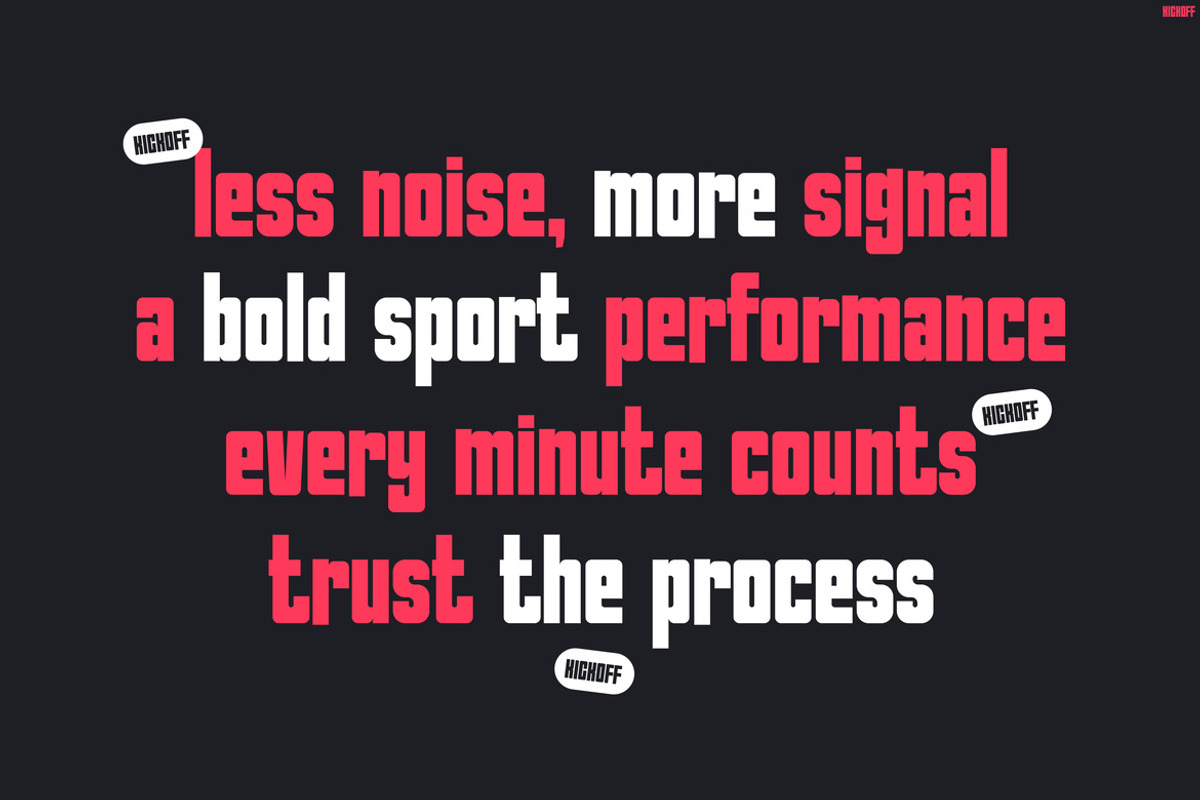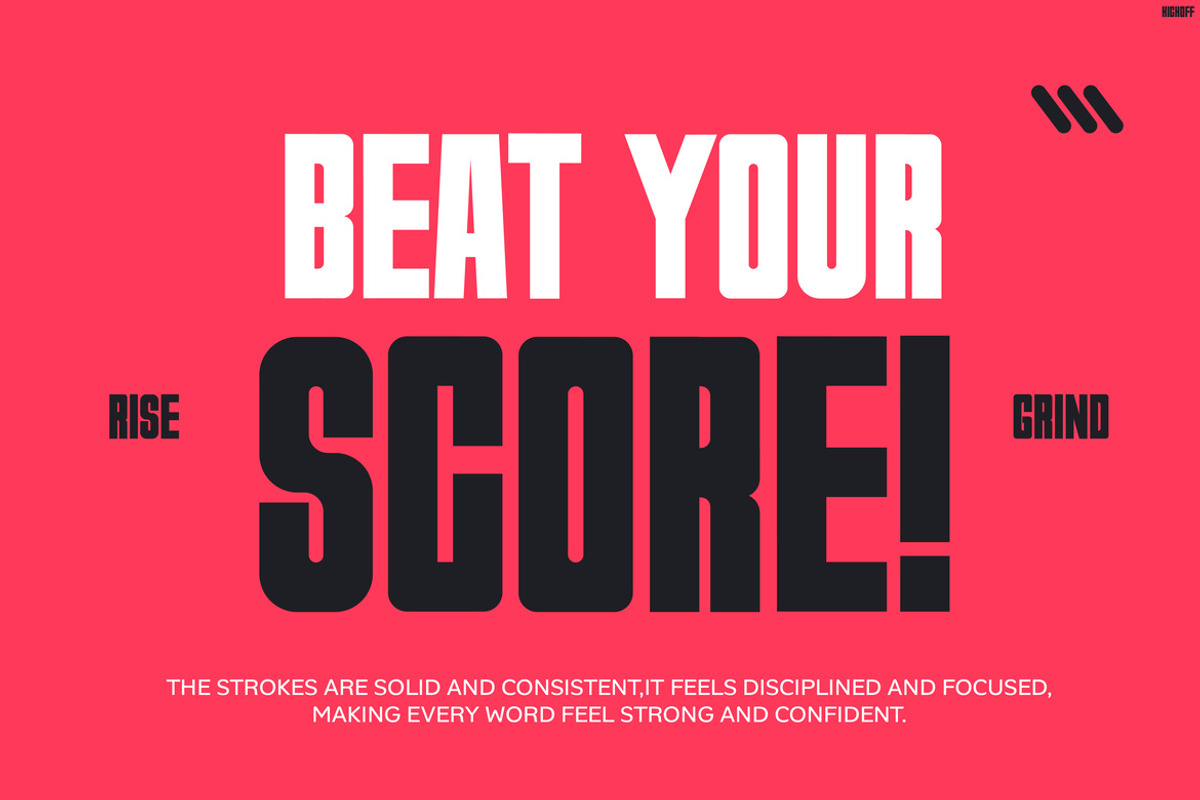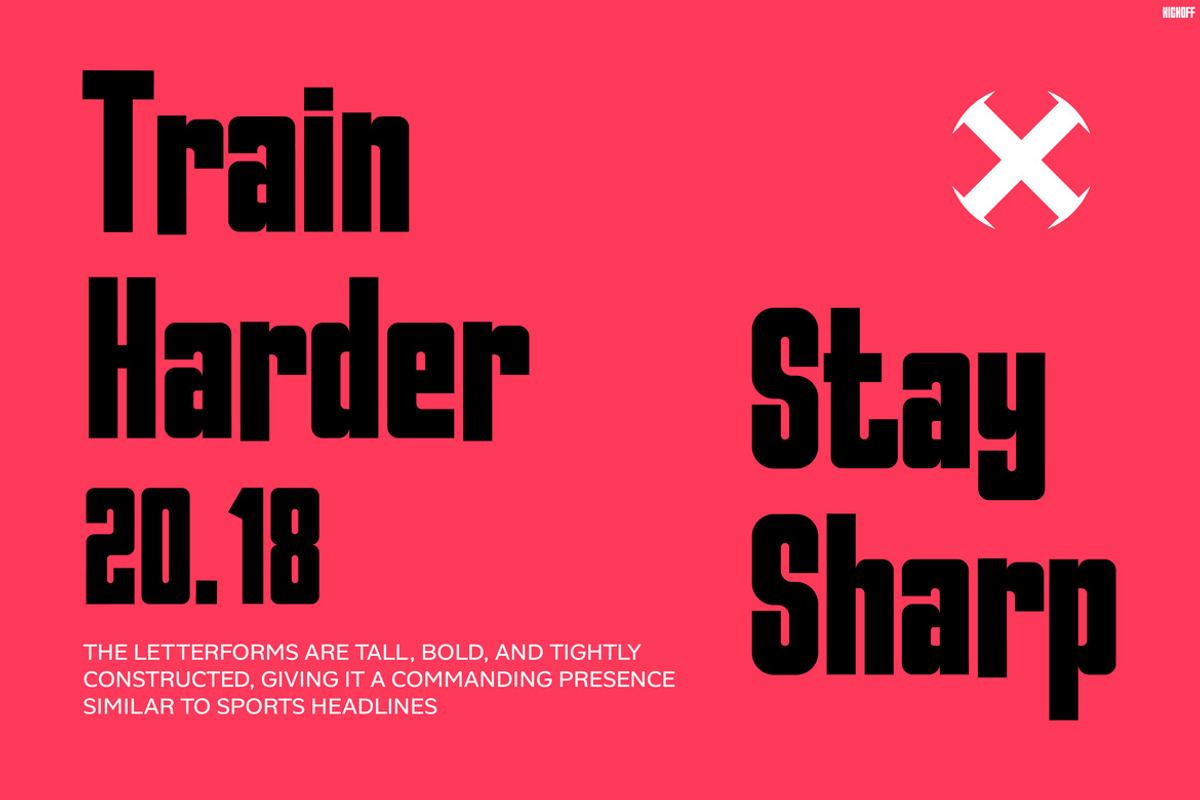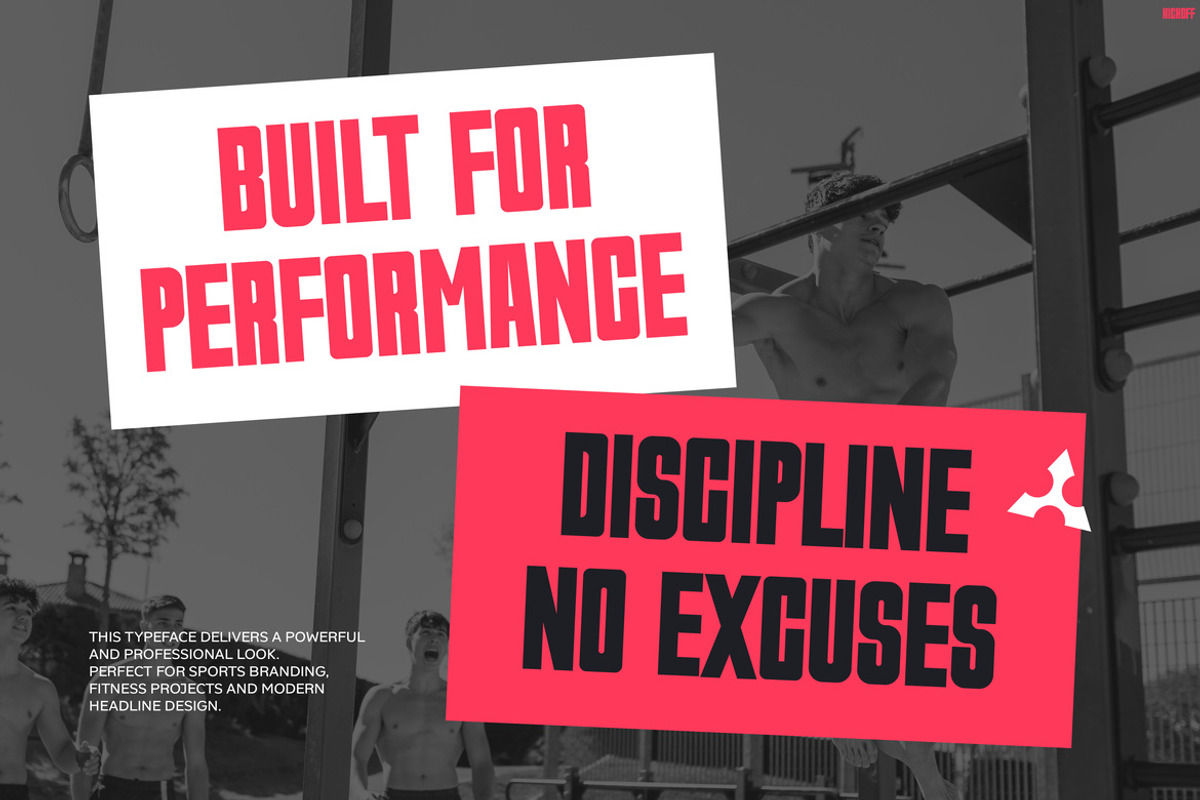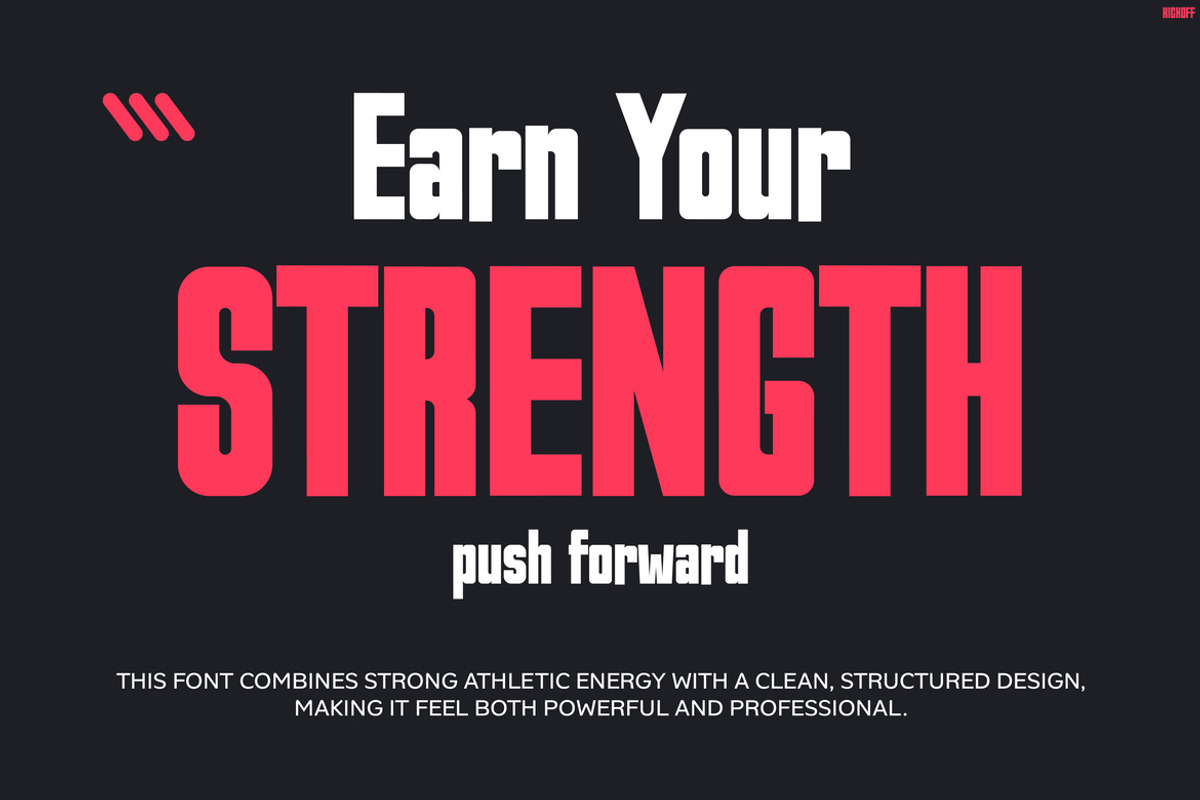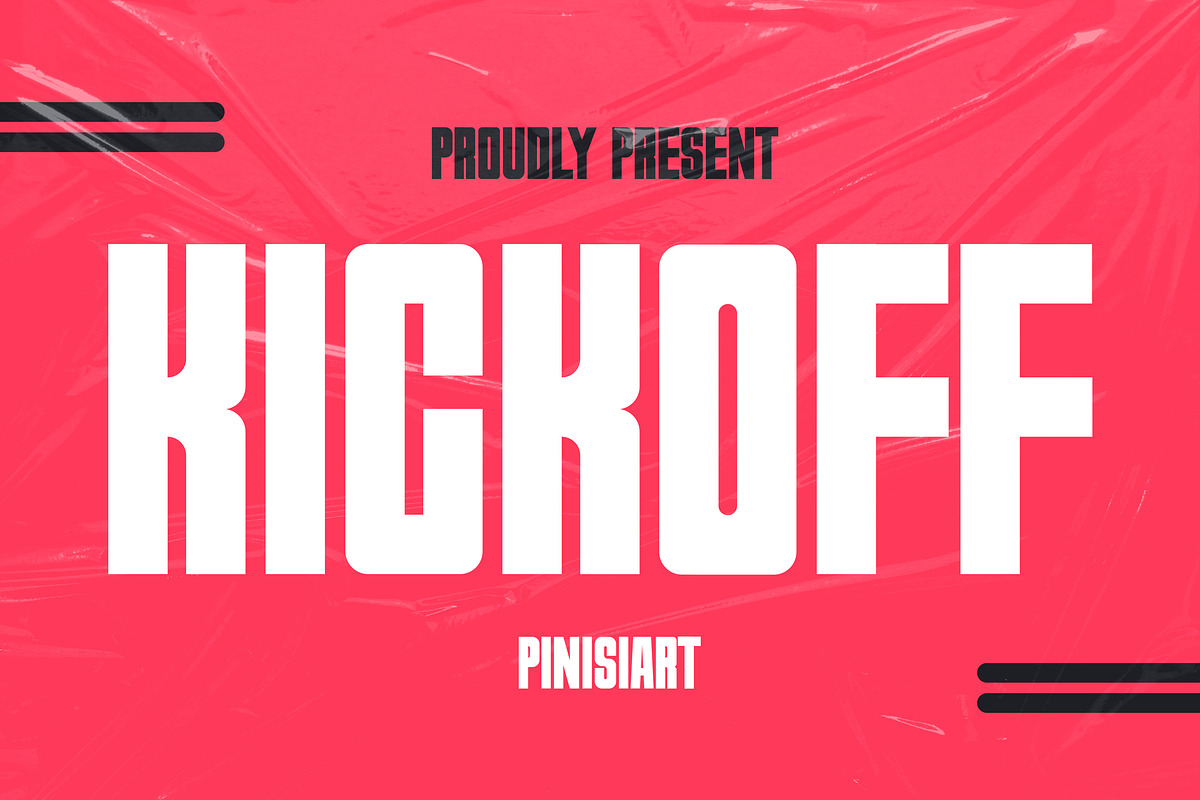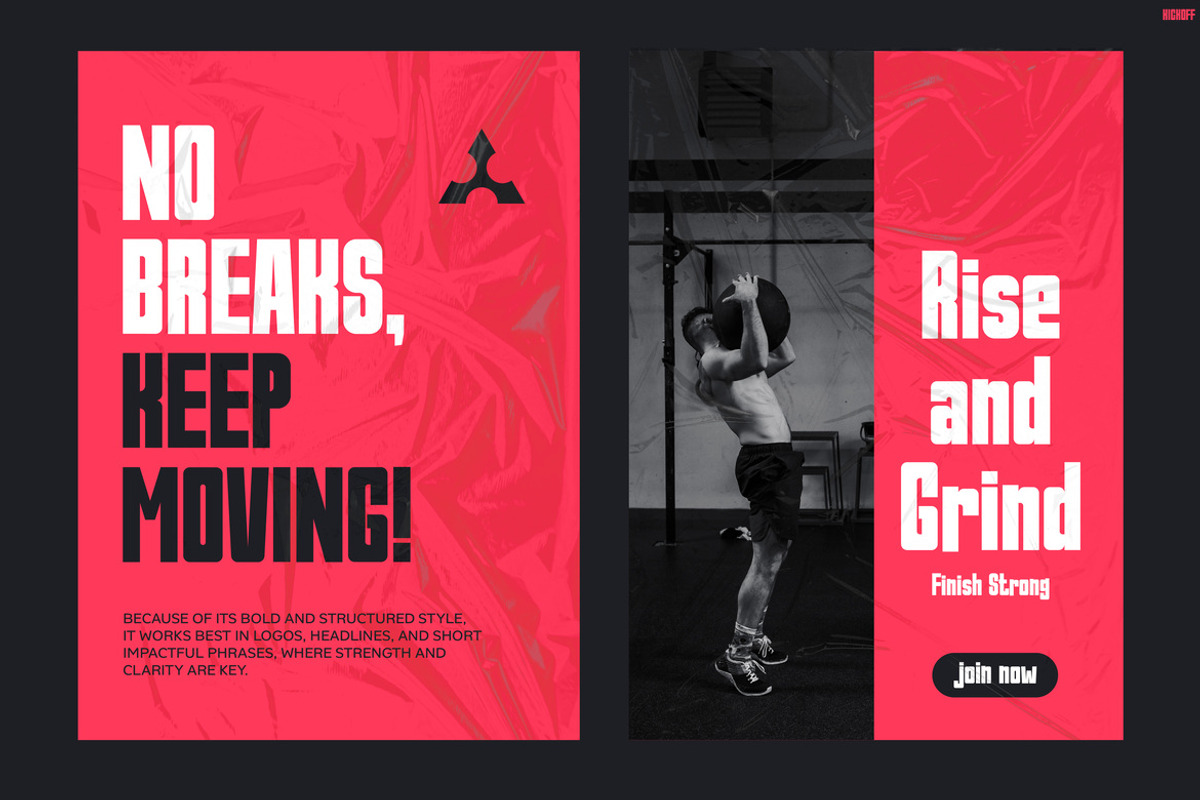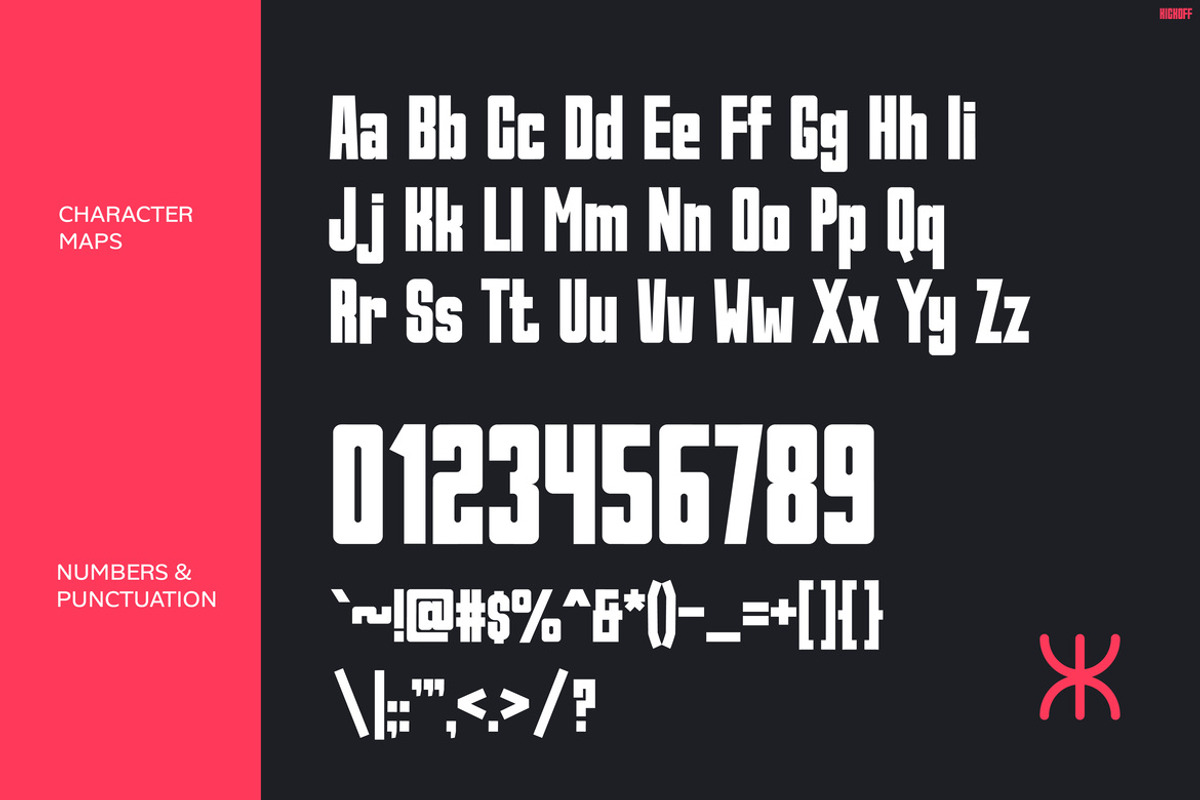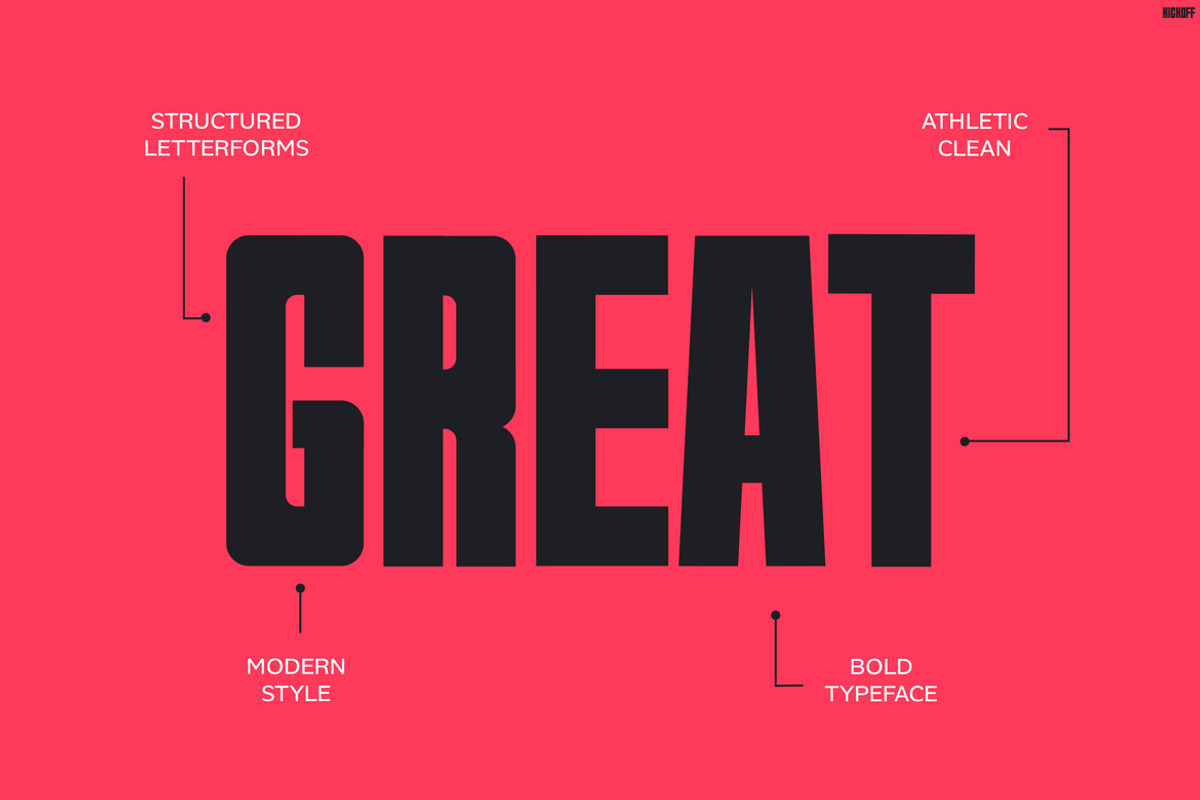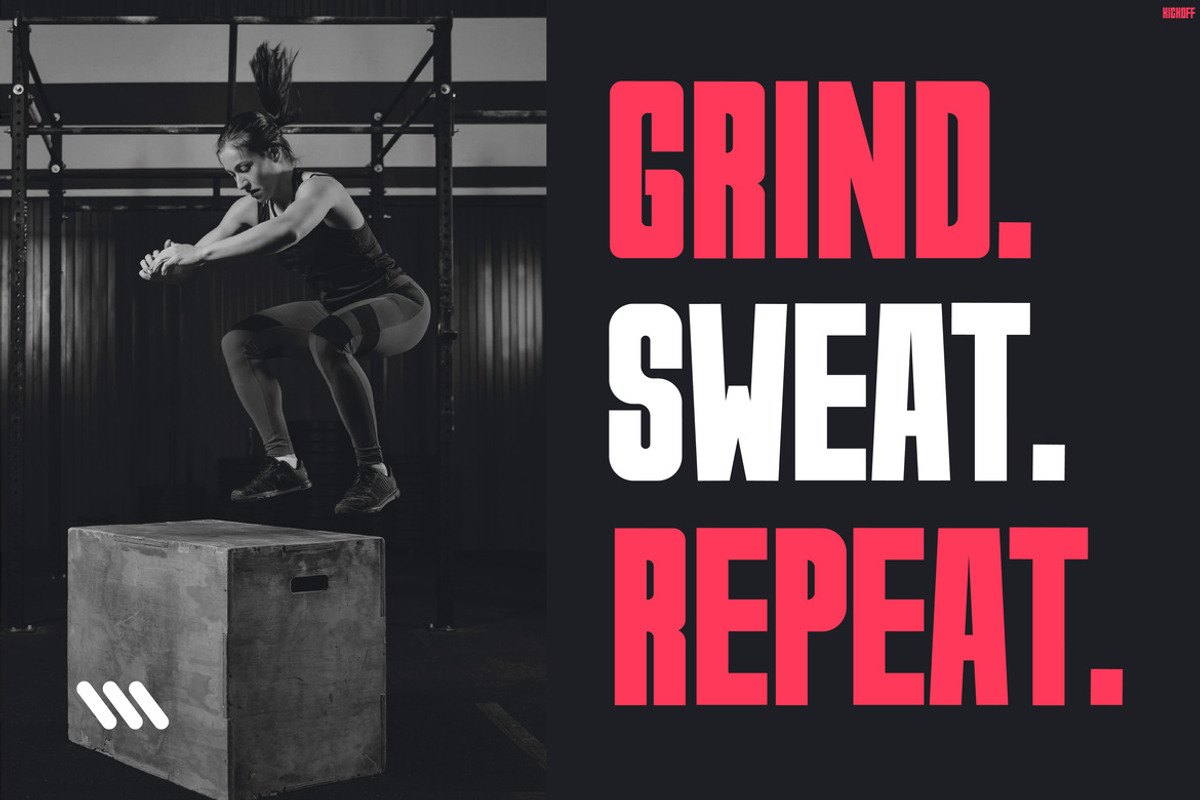
KICKOFF
KICKOFF – Bold Sport Impact Display Font
Sport Font KICKOFF is a powerful, high-impact display typeface designed to dominate attention instantly. Moreover, its tall, condensed letterforms and sharp edges create a striking and modern athletic aesthetic. In addition, the bold geometric structure enhances readability while still delivering an aggressive visual punch. As a result, every composition feels energetic, fast, and performance-driven. Not only does it capture attention, but it also reinforces strength and discipline through its clean yet intense styling. Therefore, KICKOFF becomes a perfect solution for designers who want bold, confident visuals that stand out in competitive spaces.
KICKOFF is built for creators who want their message to hit hard and fast. Furthermore, the font combines condensed proportions with heavy weight to maximize space efficiency without sacrificing clarity. In the same way, its uppercase dominance strengthens the overall tone, making each word feel commanding and impactful. Additionally, the clean cuts and modern structure allow it to adapt seamlessly across digital and print media. Whether you are designing posters, social media content, or branding materials, this font consistently delivers a powerful visual rhythm. Consequently, it enhances both readability and emotional impact at the same time.